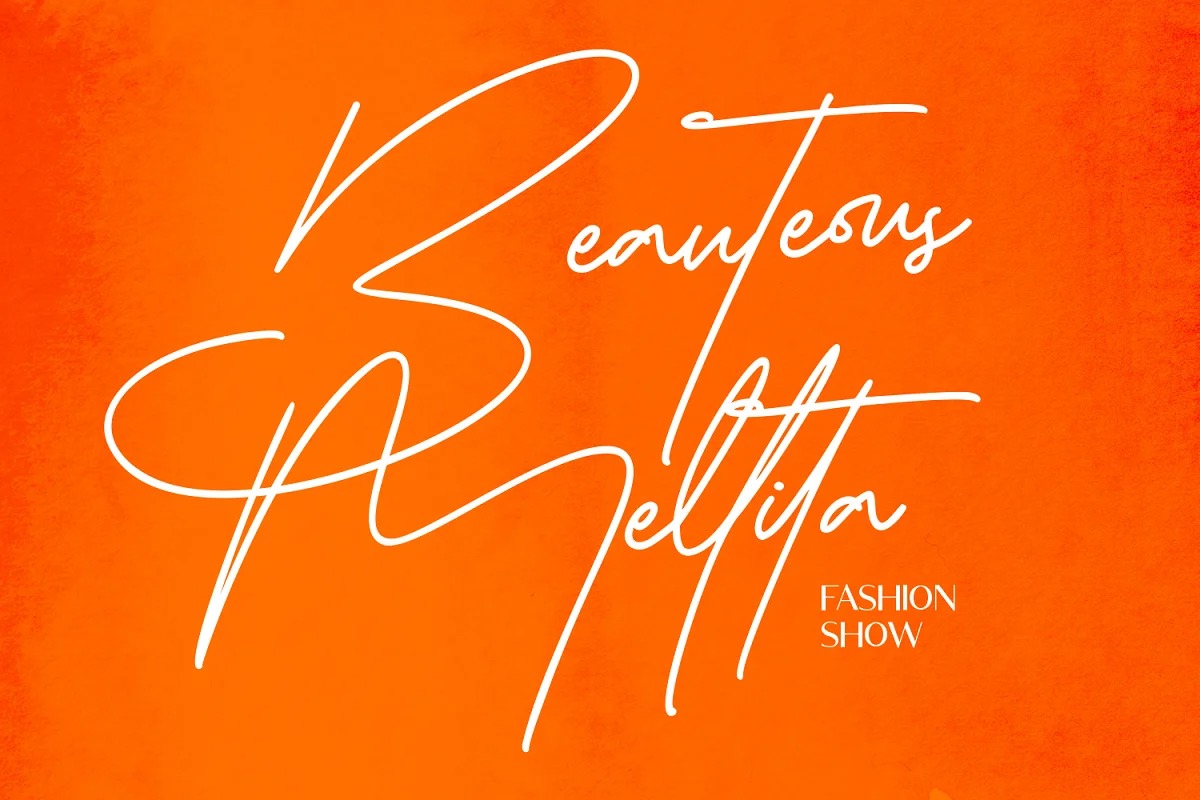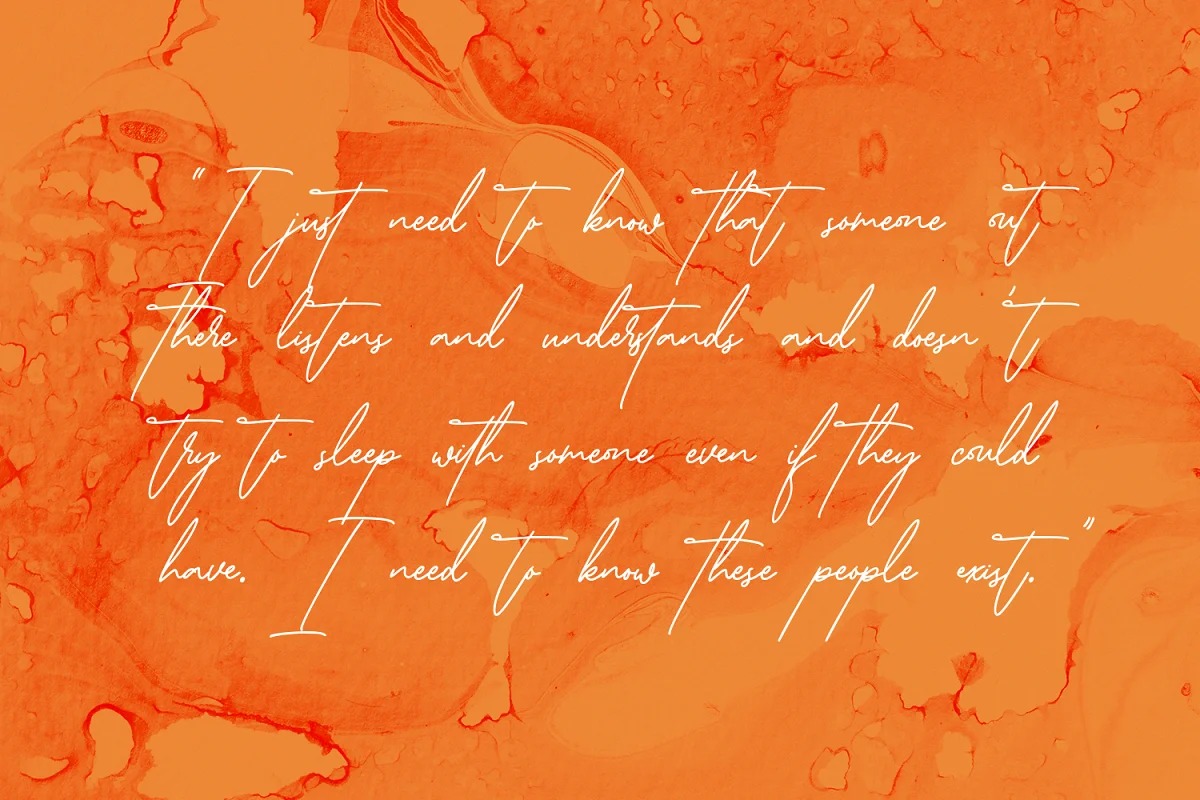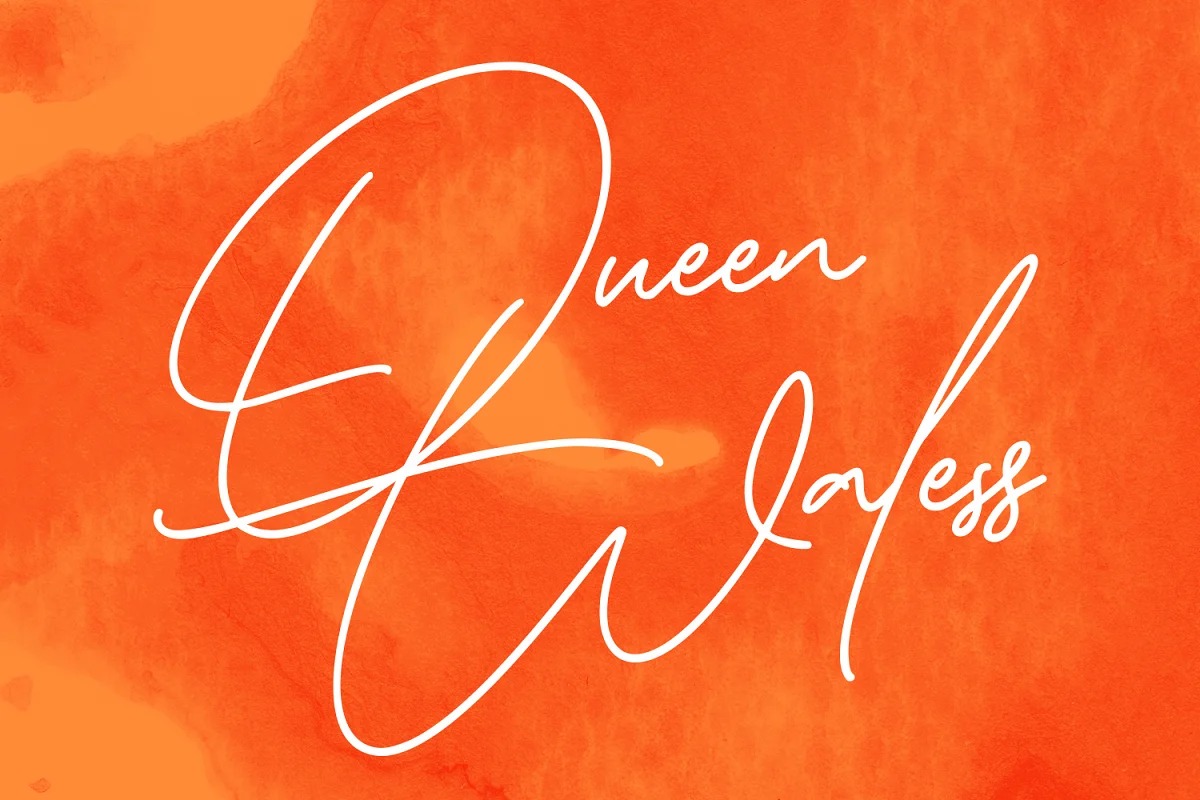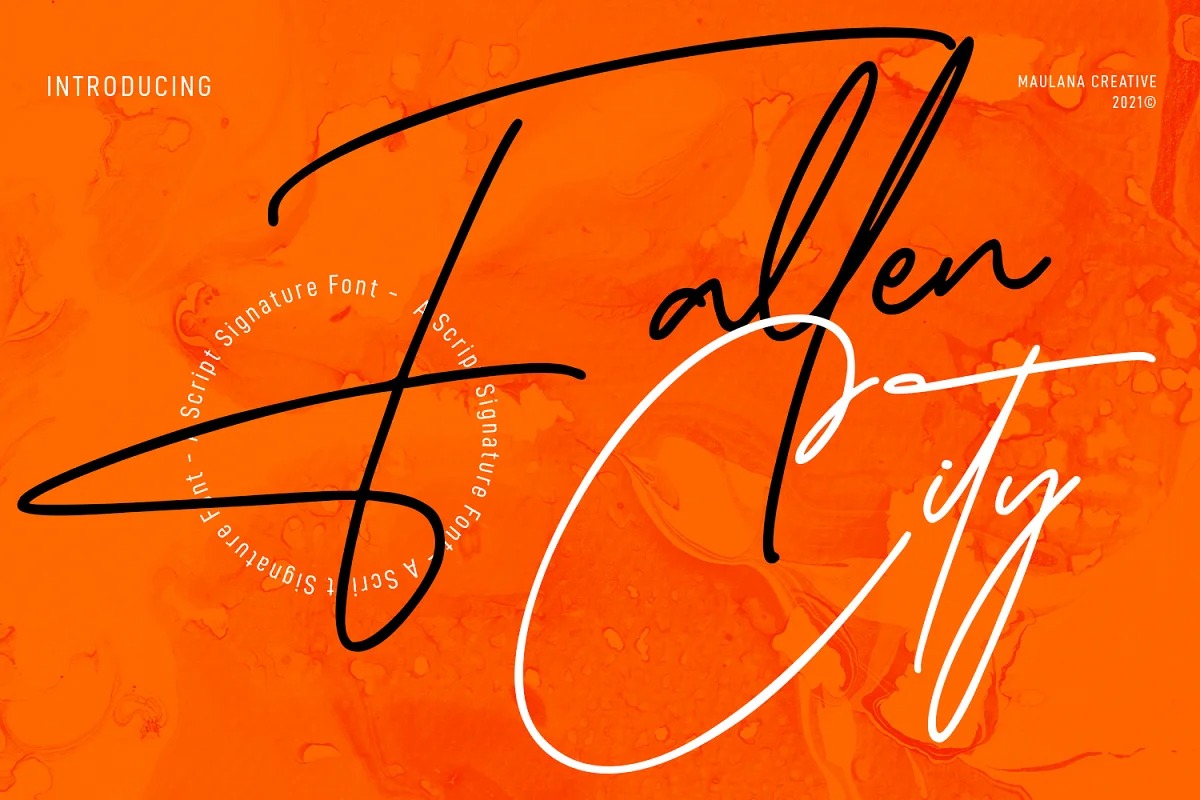
Fallen City Font
Fallen City Handwritten Font is a modern and awesome handwriting font created by  Maulana Creative with a natural style. With light mono-line stroke, slanted and fun character with a bit of ligatures and lowercase alternates. To give you an extra creative work. Fallen City font support multilingual more than 100+ language. This font is good for logo design, Social media, Movie Titles, Books Titles, a short text even a long text letter and good for your secondary text font with sans or serif. Make a stunning work with Fallen City font.